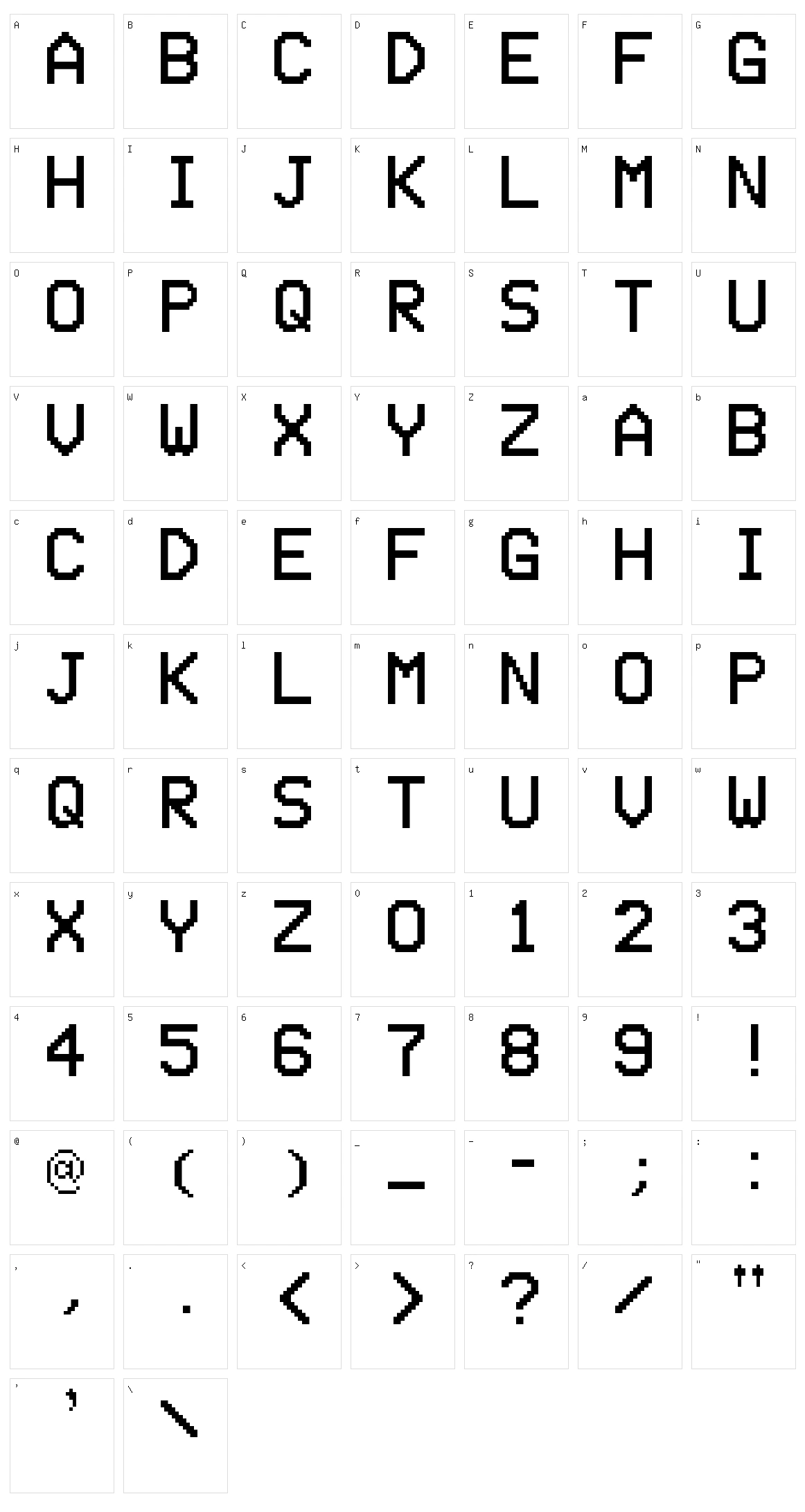
Freecam
FREECAM v2 is a public domain font created by Michelle Lyons. It is intended to be used to emulate the in-camera titling facilities of early consumer video cameras.
It was originally produced in response to a free camcorder font being withdrawn and only being made available under a non-commercial license - that you had to pay for (?!). Five minutes worth of Googling came up with a full NTSC resolution screengrab of a complete camcorder font, and FreeCam v1 was created.
Version 1 only had alphanumeric characters, but Version 2 includes some of the most commonly-used punctuation marks, like exclamation marks, question marks, colons, semi-colons and a few other things. As this font is public domain, it may be used by anyone for any purpose, including commercial ones. Editing of the font is also allowed.